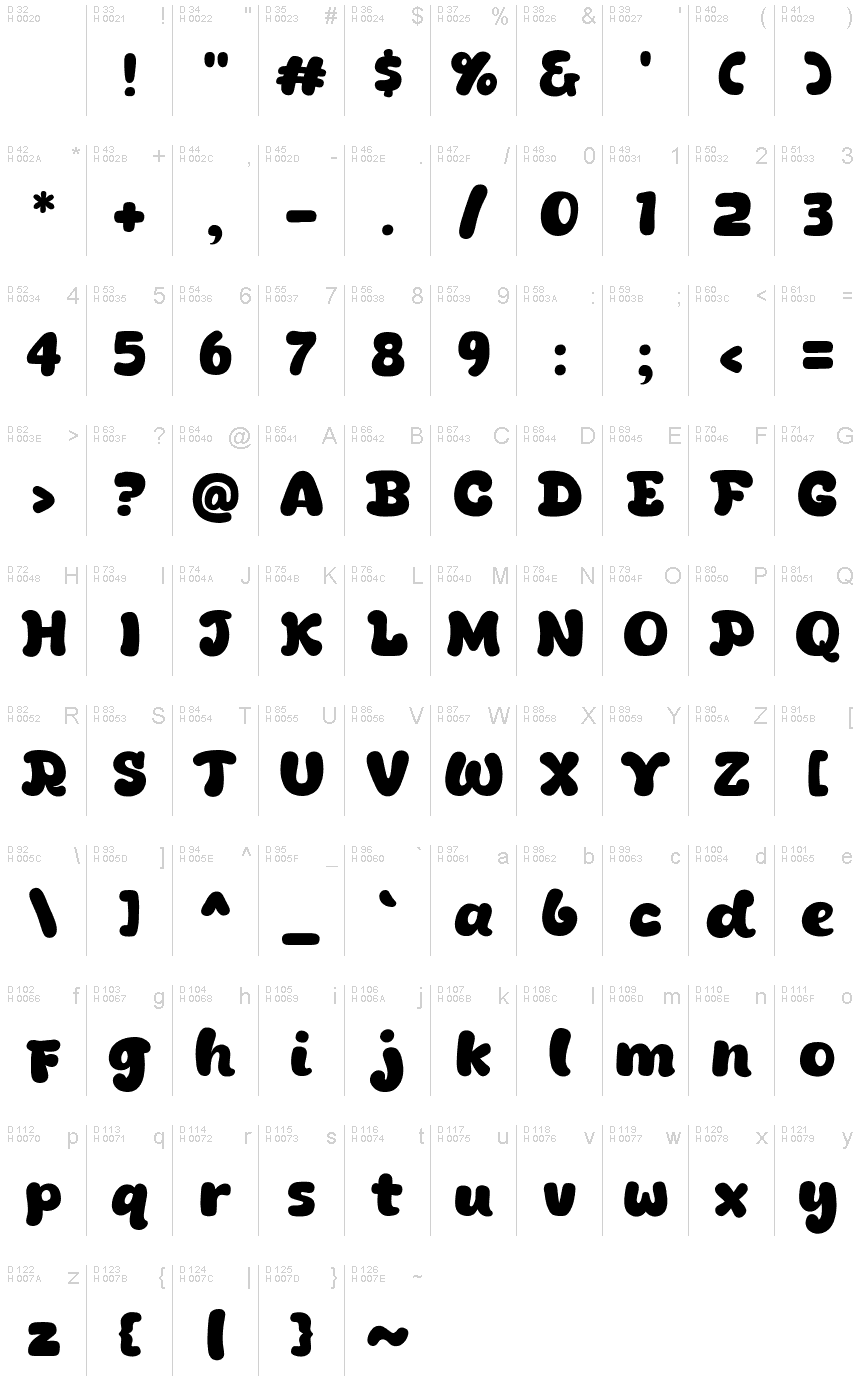
Jalembe
Jalembe, designed by Khurasan, bursts onto the scene with its extra-bold display that encapsulates the whimsy and fun of cartoon style. With its playful curves and robust character forms, this font offers a visual feast that is both engaging and delightfully expressive.
Perfect for capturing attention in creative projects ranging from children's books to eye-catching advertisements, Jalembe's aesthetic appeal lies in its ability to convey lightheartedness without sacrificing impact. Its suitability for bold headings, exciting branding ventures, or any design longing for a touch of joviality makes it an indispensable asset for designers aiming to inject personality and zest into their work.